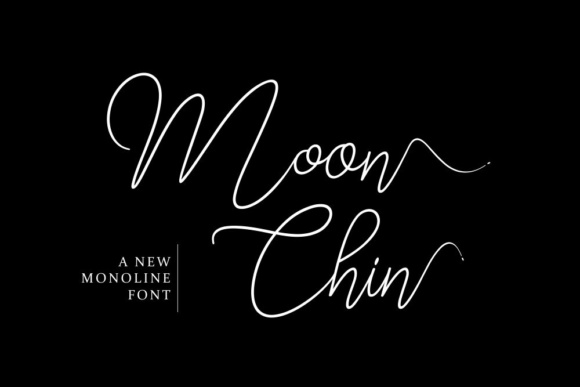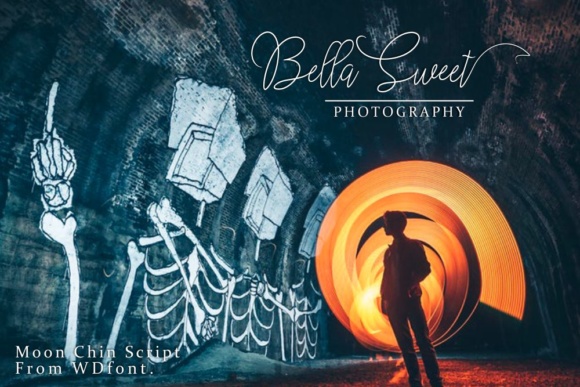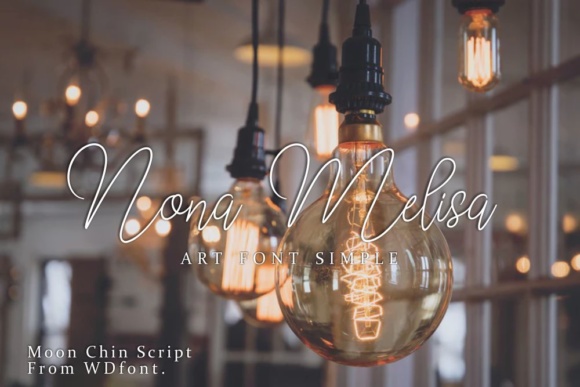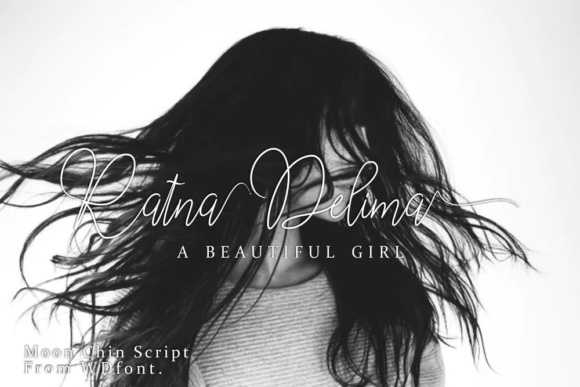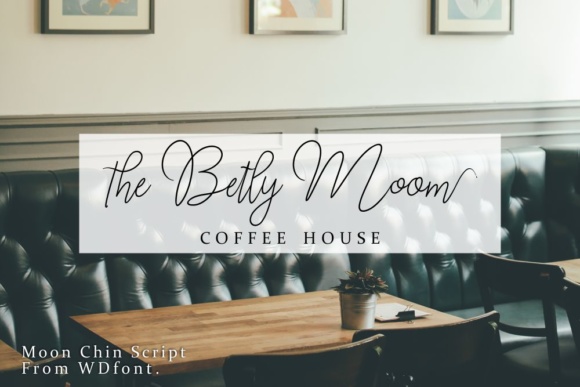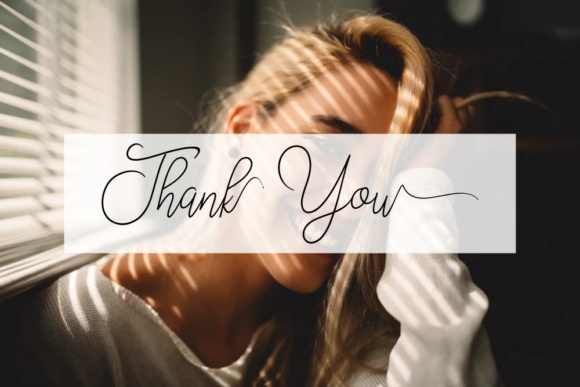
Moon Chin Font
About Moon Chin Font
The Moon Chin is a connecting script with a dancing baseline, designed to convey elegance and style. It is clean, feminine and friendly. All designs will have a wonderful homemade touch with Moon Chin, a gorgeous script font.